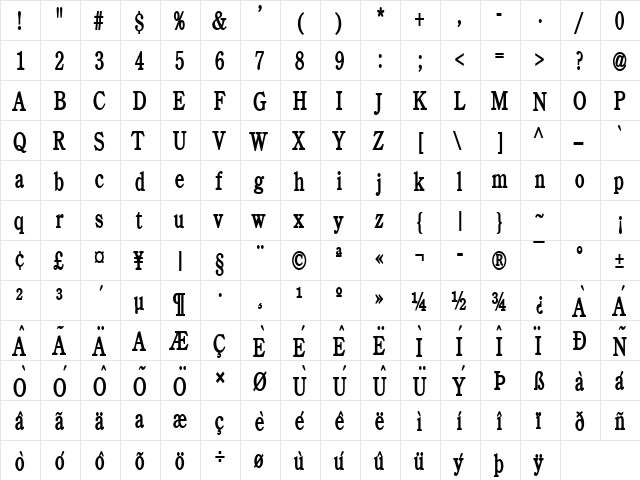
Cento Thin Bold
Design Context for Cento Thin Typeface
Cento Thin is a composed and adaptable typeface that performs quietly and consistently across a wide range of design contexts. Its bold stroke weight gives it real presence on the page.